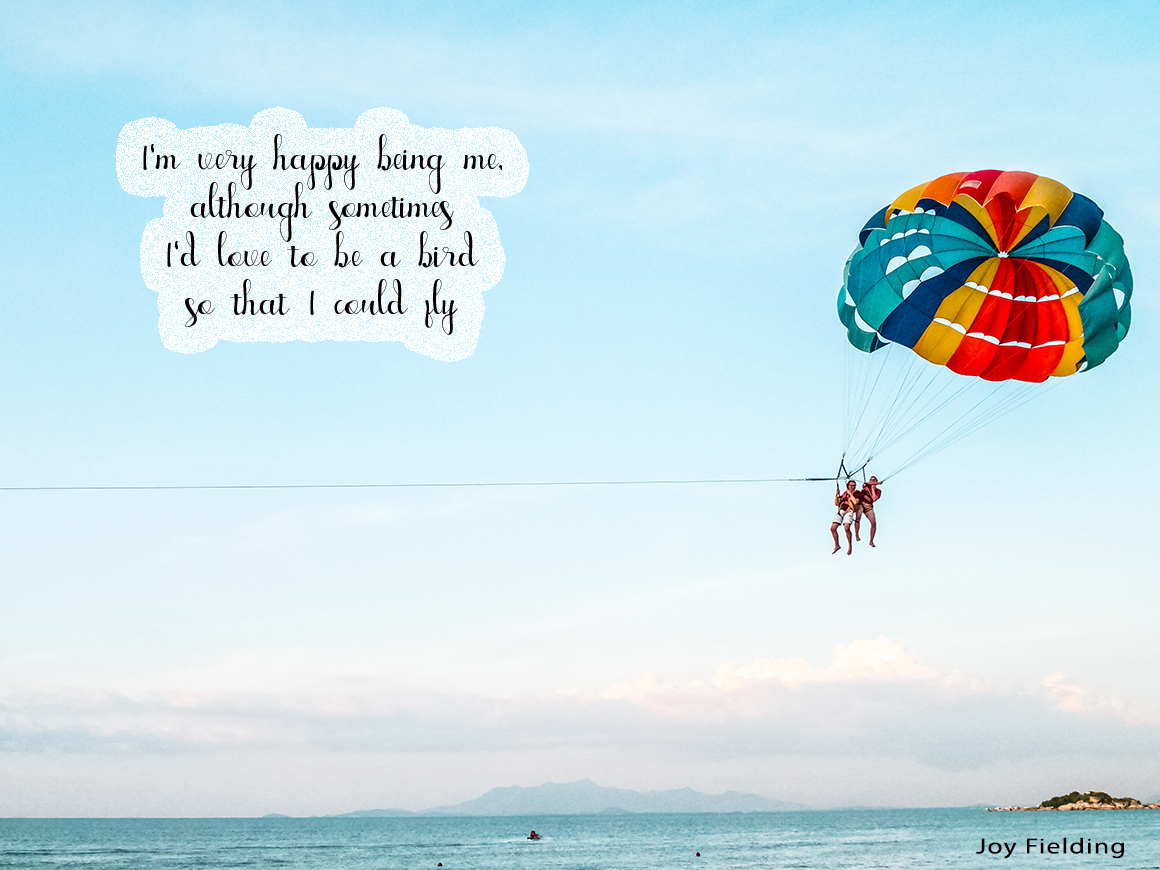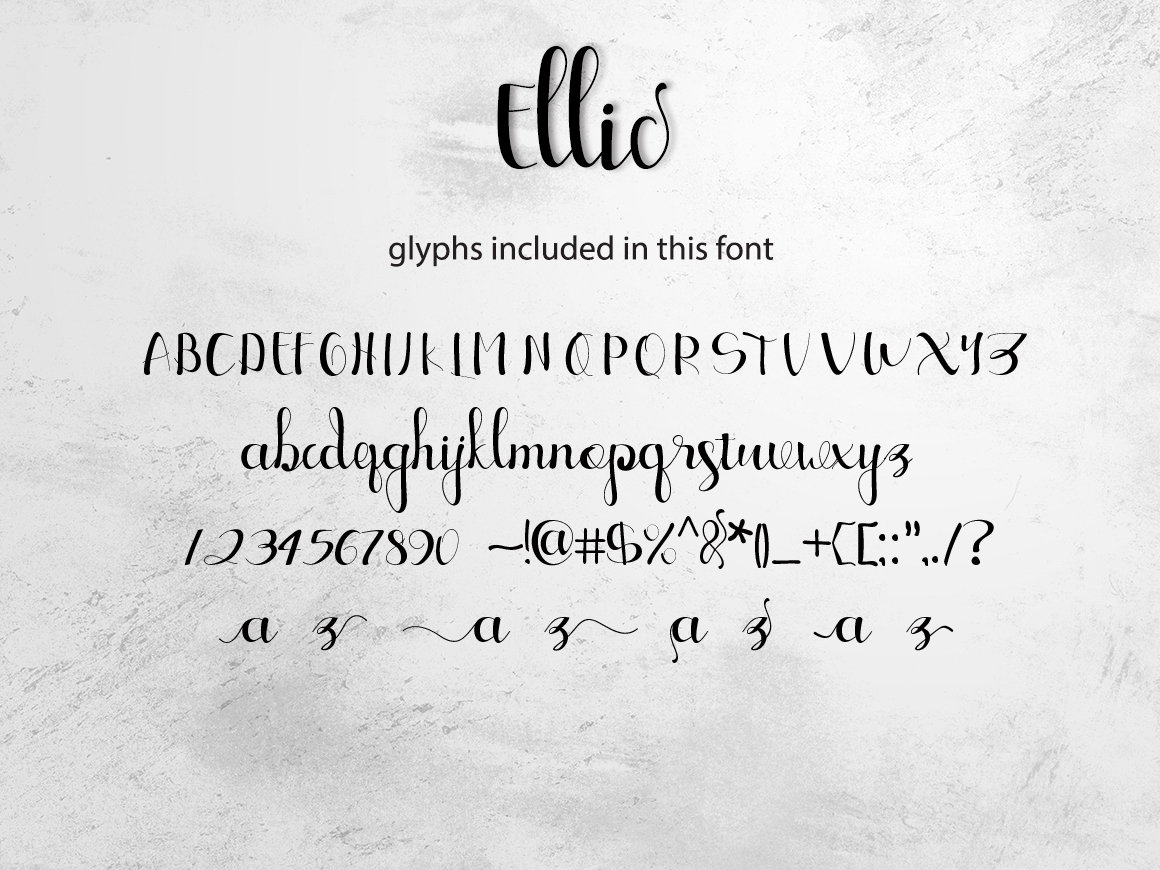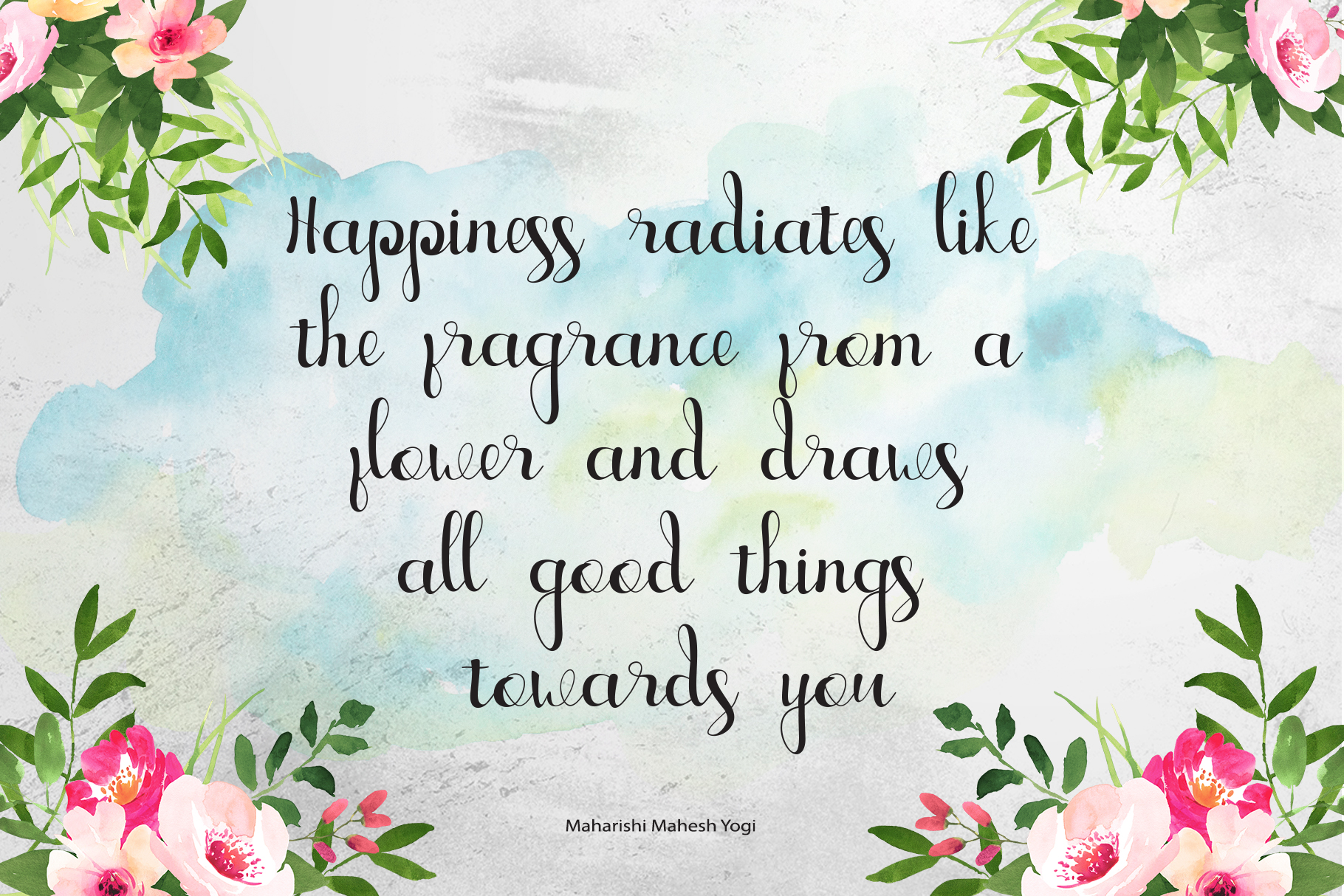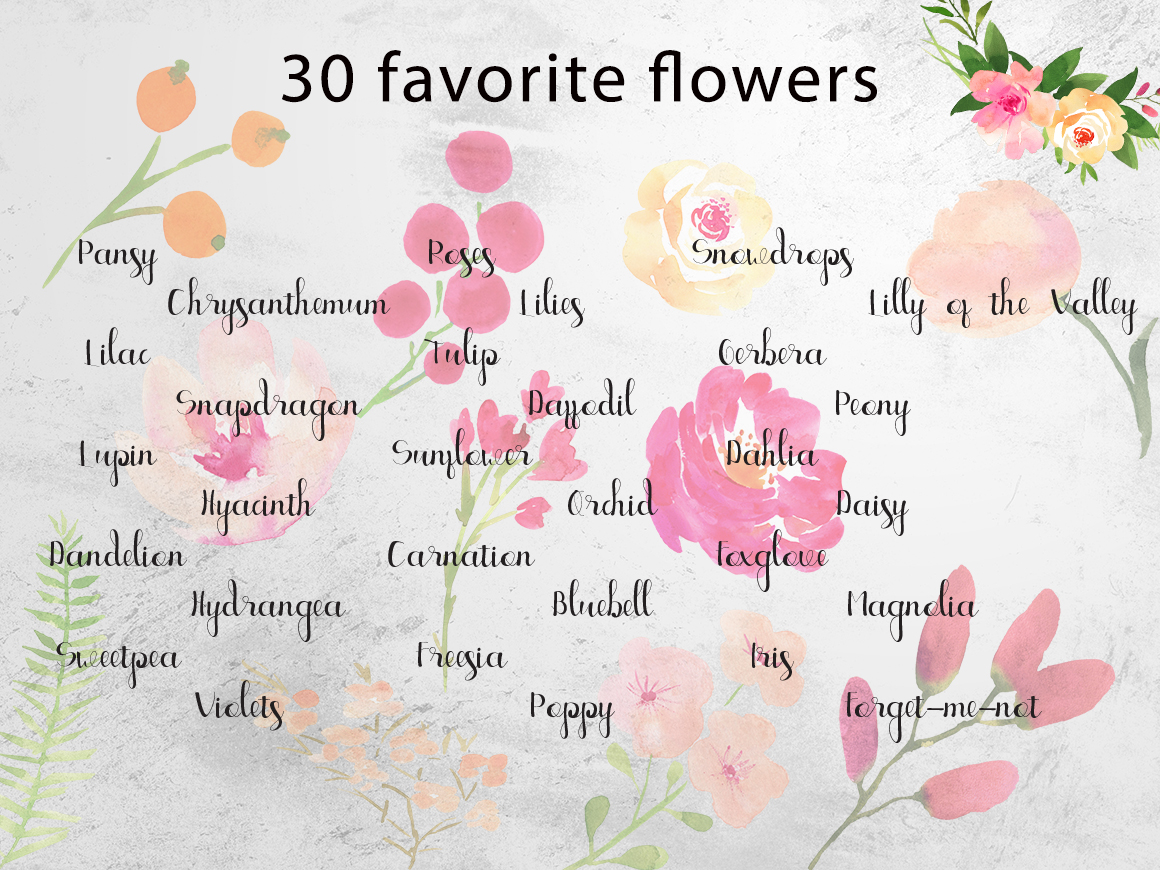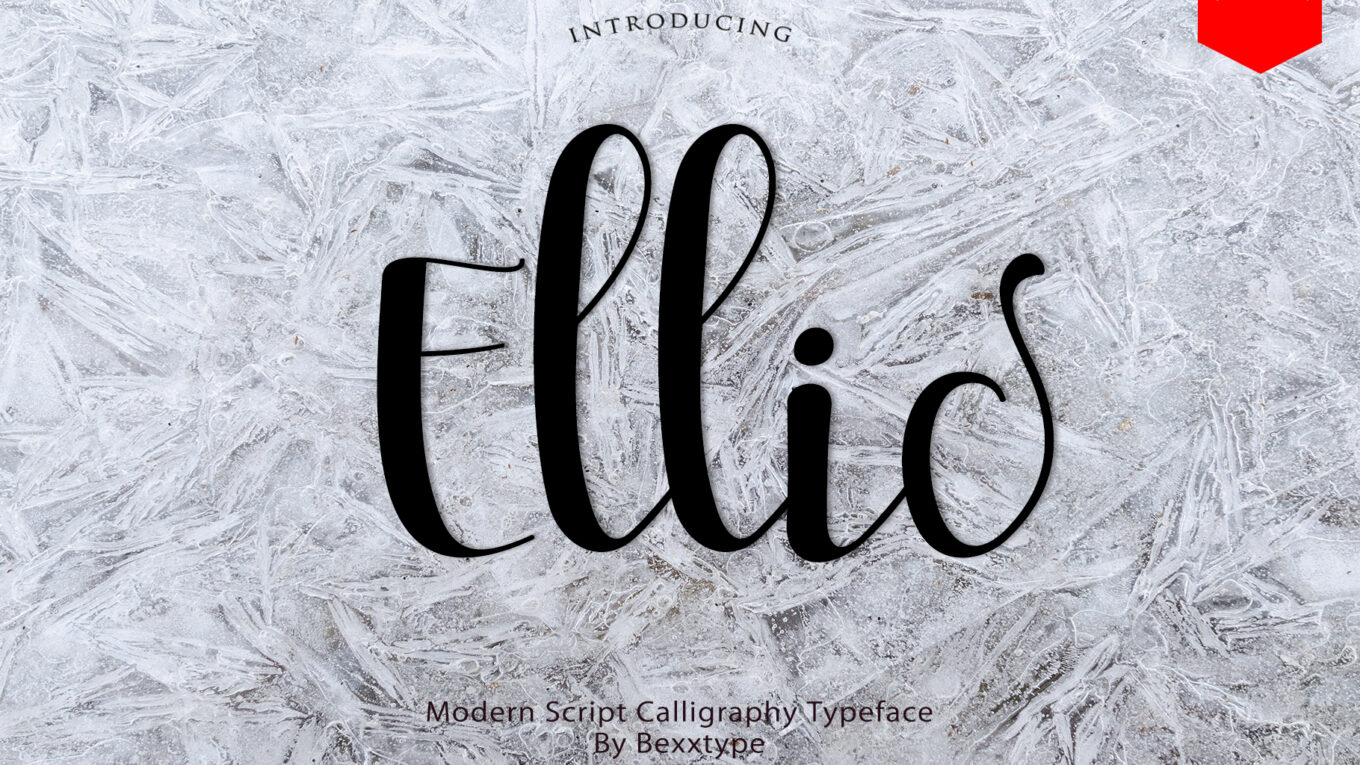
Introducing Ellic Font: A Stunning Modern Script Font for Your Creative Projects
Are you a designer or crafter looking for a beautiful and versatile font to elevate your creative projects? Look no further than Ellic Font, a stunning modern script font that is sure to impress. With its careful construction and expansive character set, Ellic Font is the perfect choice for display text, headers, and branded projects.
What Makes Ellic Font So Special?
Ellic Font is a modern script font that boasts a range of impressive features, making it an ideal choice for designers and crafters. Here are just a few of the things that set Ellic Font apart:
- Careful Construction: Ellic Font has been carefully crafted to ensure that it looks great in a variety of contexts, from large display text to smaller body text.
- Expansive Character Set: With over 400 glyphs, Ellic Font offers a wide range of characters, including letters, numbers, and punctuation marks, making it perfect for a variety of creative projects.
- Modern and Elegant: Ellic Font features a modern and elegant design that is sure to add a touch of sophistication to any project.
Perfect for Display Text and Branded Projects
Ellic Font is particularly well-suited for display text and branded projects. Its bold and elegant design makes it perfect for:
- Logos and Branding: Use Ellic Font to create a stunning logo or brand identity that will set your business apart.
- Headers and Titles: Ellic Font is perfect for adding a touch of elegance to headers and titles in your designs.
- Advertising and Marketing: Use Ellic Font to add a touch of sophistication to your advertising and marketing materials.
Why Choose Ellic Font?
So why should you choose Ellic Font for your creative projects? Here are just a few reasons:
- Unique and Eye-Catching: Ellic Font is a unique and eye-catching font that is sure to grab attention.
- High-Quality Design: Ellic Font features a high-quality design that is perfect for professional-looking projects.
- Easy to Read: Despite its elegant design, Ellic Font is easy to read, making it perfect for a variety of applications.
How to Use Ellic Font in Your Designs
Using Ellic Font in your designs is easy. Here are a few tips to get you started:
- Experiment with Different Sizes: Ellic Font looks great in a variety of sizes, so don’t be afraid to experiment.
- Pair with Other Fonts: Ellic Font pairs well with a range of other fonts, so try combining it with different fonts to create a unique look.
- Use in Digital and Print Projects: Ellic Font is perfect for both digital and print projects, so feel free to use it in a variety of applications.
In conclusion, Ellic Font is a stunning modern script font that is perfect for designers and crafters looking to add a touch of elegance to their creative projects. With its careful construction, expansive character set, and modern design, Ellic Font is sure to impress. Whether you’re looking to create a stunning logo, add a touch of sophistication to your advertising materials, or simply want to elevate your design projects, Ellic Font is the perfect choice.